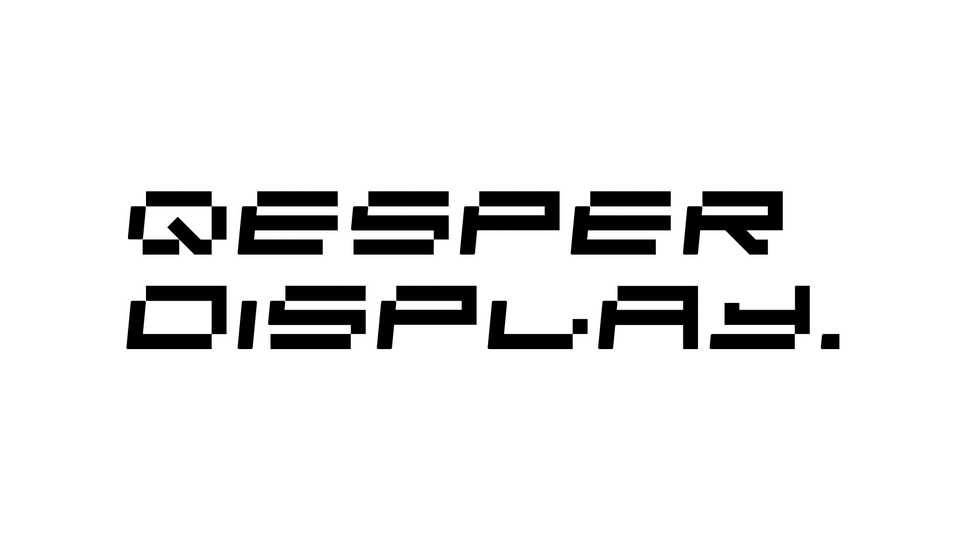
Download Qesper Display font, a pixel display typeface designed for Qesper logo. It was created around a basic ruleset: the most-left line is slanted at 84.5 degrees, the top-left and bottom-right corners are cleared.
Designer: Albert Smit